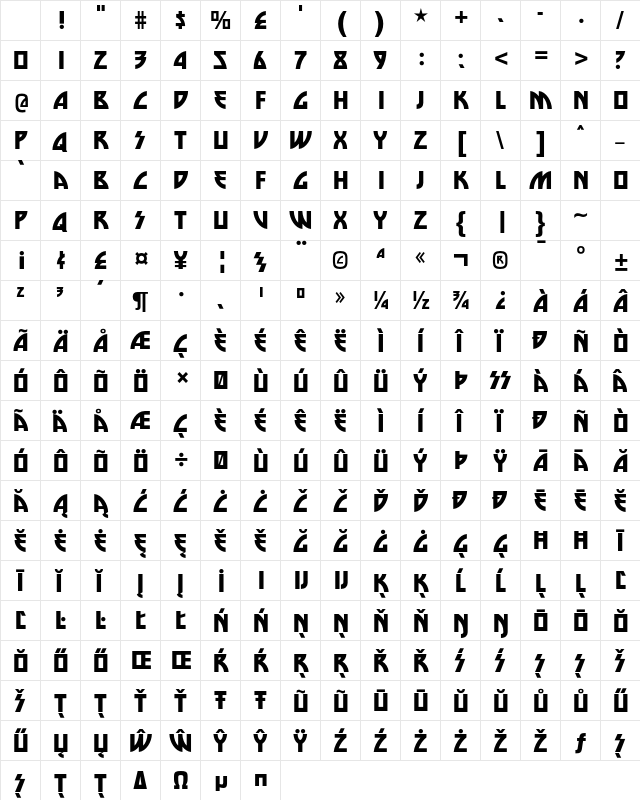
Complete Die Nasty Regular glyph index. Displaying only characters natively supported by Die Nasty Regular font.
Die Nasty is a composed and adaptable typeface that performs quietly and consistently across a wide range of design contexts.